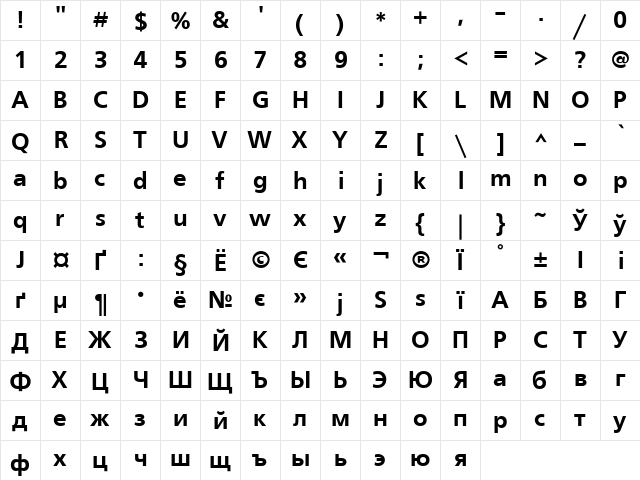
UkrainianFreeSet Bold
Design Context for UkrainianFreeSet Typeface
UkrainianFreeSet takes a measured approach to typography — its balanced proportions and neutral character make it a reliable workhorse for both digital and print work. The heavy weight commands attention and anchors typographic hierarchies.